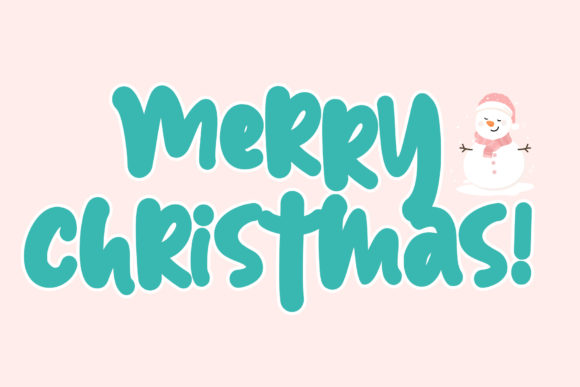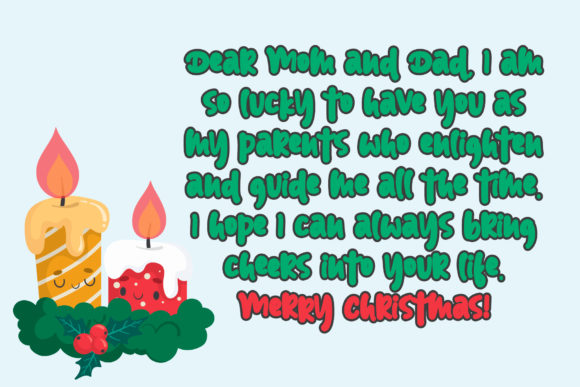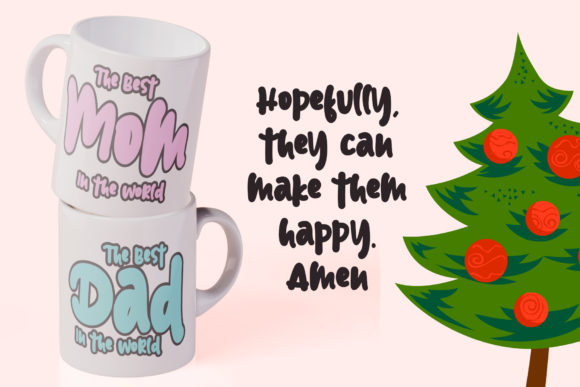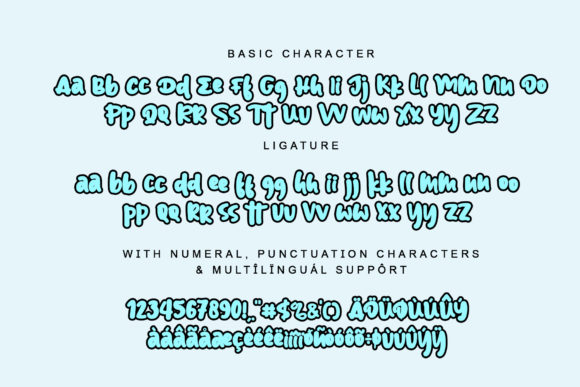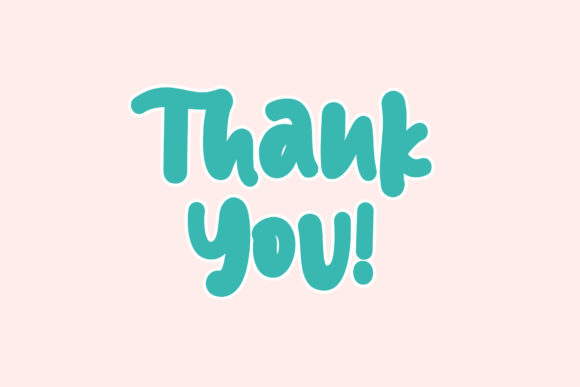
Cuddle Bunny Font: The Perfect Addition to Your Easter and Spring Projects
Are you looking for a font that captures the essence of spring and Easter? Look no further than the Cuddle Bunny Font! This playful and sweet display font is perfect for adding a touch of whimsy to your Easter cards, branding, stationery, blog designs, custom art, stamps, and much more.
What is Cuddle Bunny Font?
Cuddle Bunny Font is a carefully crafted display font designed to bring a smile to your face. Its playful and sweet design makes it an ideal choice for a wide range of projects, from Easter-themed crafts to spring-inspired branding. The font’s friendly and approachable feel makes it perfect for designers and crafters who want to add a personal touch to their work.
Features of Cuddle Bunny Font
Cuddle Bunny Font comes with a range of features that make it a versatile and practical choice for designers and crafters. Some of its key features include:
- Playful and sweet design perfect for Easter and spring-themed projects
- Display font ideal for headings, titles, and short text
- Suitable for a wide range of projects, including Easter cards, branding, stationery, blog designs, custom art, stamps, and more
- Easy to read and understand, making it perfect for use in a variety of contexts
Uses of Cuddle Bunny Font
Cuddle Bunny Font is a versatile font that can be used in a wide range of projects. Here are some ideas to get you started:
- Easter cards: Add a personal touch to your Easter cards with Cuddle Bunny Font.
- Branding: Use Cuddle Bunny Font to create a playful and memorable brand identity for your business.
- Stationery: Add a touch of whimsy to your stationery with Cuddle Bunny Font.
- Blog designs: Use Cuddle Bunny Font to create eye-catching headings and titles for your blog.
- Custom art: Cuddle Bunny Font is perfect for use in custom art projects, such as illustrations and graphics.
- Stamps: Use Cuddle Bunny Font to create custom stamps for your craft projects.
Why Choose Cuddle Bunny Font?
So why choose Cuddle Bunny Font for your Easter and spring projects? Here are just a few reasons:
- Unique and playful design: Cuddle Bunny Font is a one-of-a-kind font that will add a touch of personality to your projects.
- Versatile: Cuddle Bunny Font can be used in a wide range of projects, from Easter cards to branding and stationery.
- High-quality: Cuddle Bunny Font is a high-quality font designed to produce crisp and clear text.
Tips for Using Cuddle Bunny Font
Here are a few tips for using Cuddle Bunny Font in your projects:
- Use it sparingly: Cuddle Bunny Font is a display font, so it’s best used sparingly to add emphasis to your text.
- Pair it with other fonts: Cuddle Bunny Font pairs well with a range of other fonts, so feel free to experiment with different combinations.
- Experiment with colors: Cuddle Bunny Font looks great in a range of colors, so don’t be afraid to experiment and find the perfect hue for your project.
| Author | Stefani Letter |
Cuddle Bunny Font is a playful and sweet display font perfect for Easter and spring-themed projects. Its unique and playful design makes it an ideal choice for designers and crafters who want to add a personal touch to their work. With its versatility, ease of use, and high-quality design, Cuddle Bunny Font is a great addition to any design or crafting toolkit.